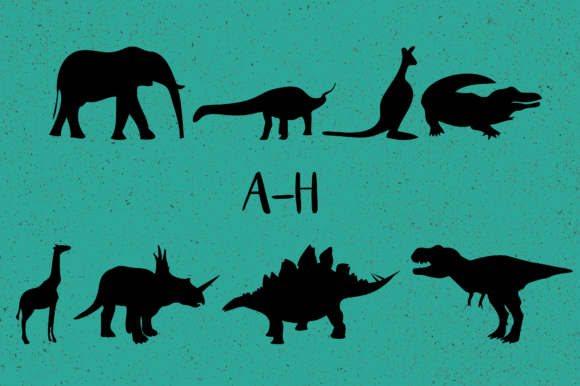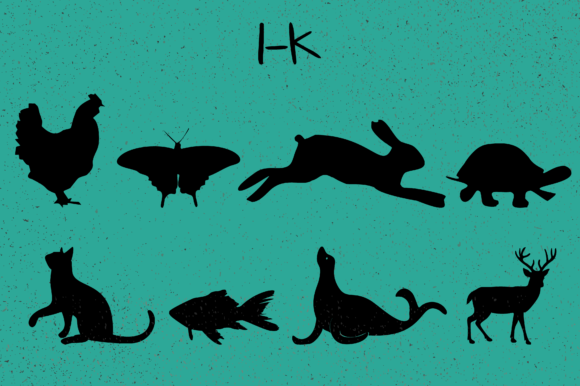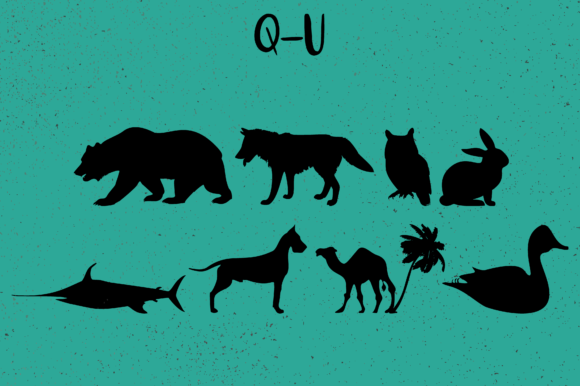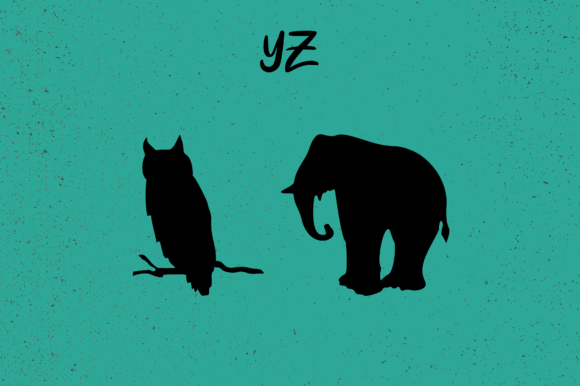
Animals Silhouettes Font
About Animals Silhouettes Font
Animals Silhouettes is a cool and original dingbats typeface that offers a wide range of unique animal silhouettes. With this font, you can effortlessly generate up to 62 different animal shapes simply by typing letters and numbers.
Whether you’re working on a graphic design project, crafting, or creating educational materials, Animals Silhouettes provides a versatile collection of animal icons that can enhance your work. The diverse range of animals included in this font allows you to depict various species and create captivating visuals.
By typing different combinations of letters and numbers, you can easily access the different animal silhouettes available in the font. Each silhouette is carefully designed to capture the essence and distinctive features of the respective animal. From common animals like dogs, cats, and birds to more exotic creatures, Animals Silhouettes offers a comprehensive selection to suit your needs.
This font is particularly useful in graphic design projects where animal illustrations are needed. Whether you’re designing posters, advertisements, or digital media, Animals Silhouettes allows you to incorporate eye-catching animal imagery with ease. The clean and recognizable silhouettes can bring a touch of charm and visual interest to your designs.
In crafting projects, Animals Silhouettes can be utilized to create unique and personalized items. From scrapbooking and card-making to vinyl decals and stencils, the animal silhouettes can be cut or printed onto various materials to add a playful and creative element to your crafts.
Furthermore, Animals Silhouettes can be a valuable resource for educational materials and presentations. Teachers, educators, and parents can utilize the font to create engaging visuals for children, making learning about different animals more enjoyable and interactive.
In conclusion, Animals Silhouettes is a cool and original dingbats typeface that offers a diverse range of animal silhouettes. By typing letters and numbers, you can easily generate up to 62 unique animal shapes, making it a versatile tool for graphic design, crafting, and educational purposes. Let Animals Silhouettes unleash your creativity and add an element of visual interest to your projects!